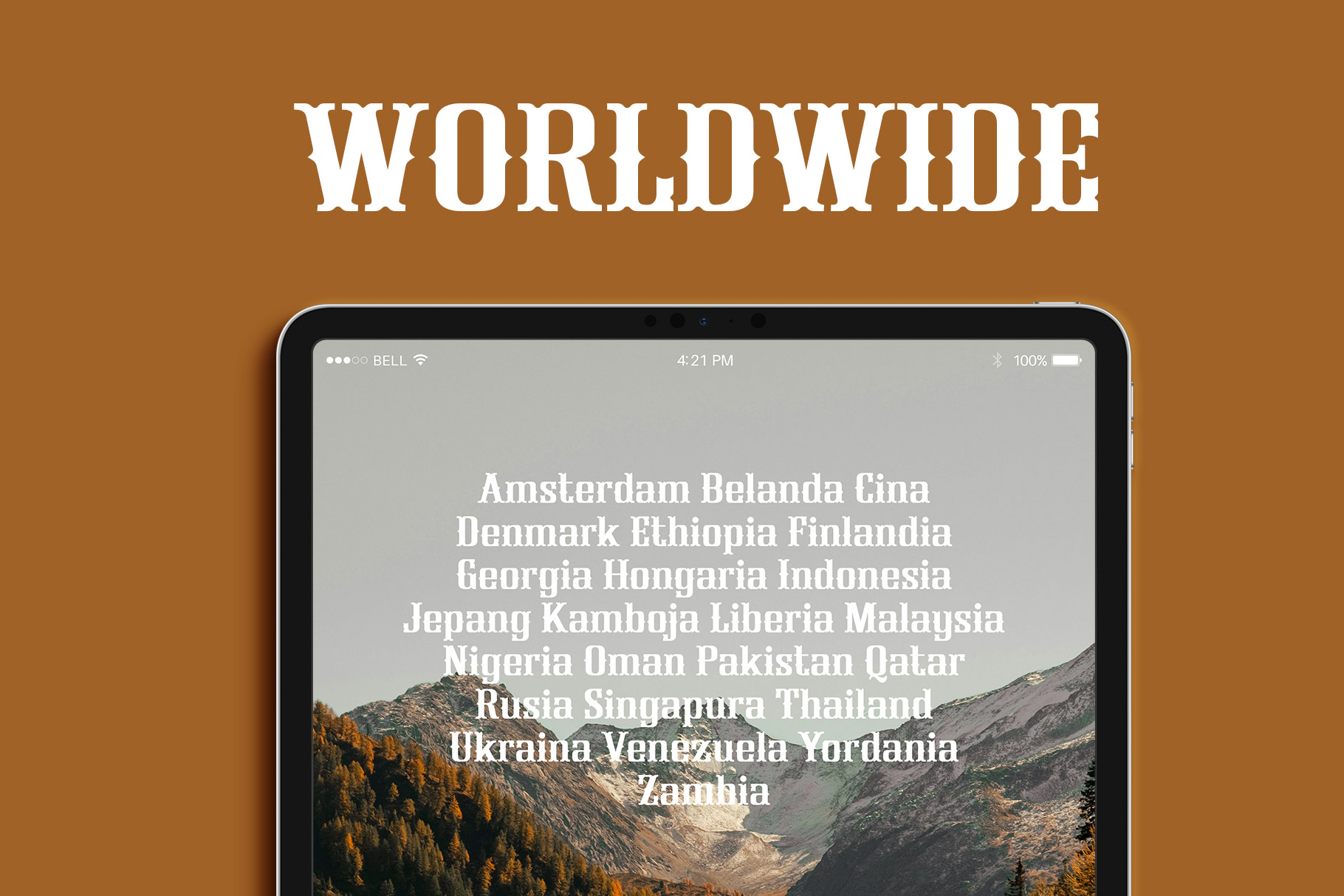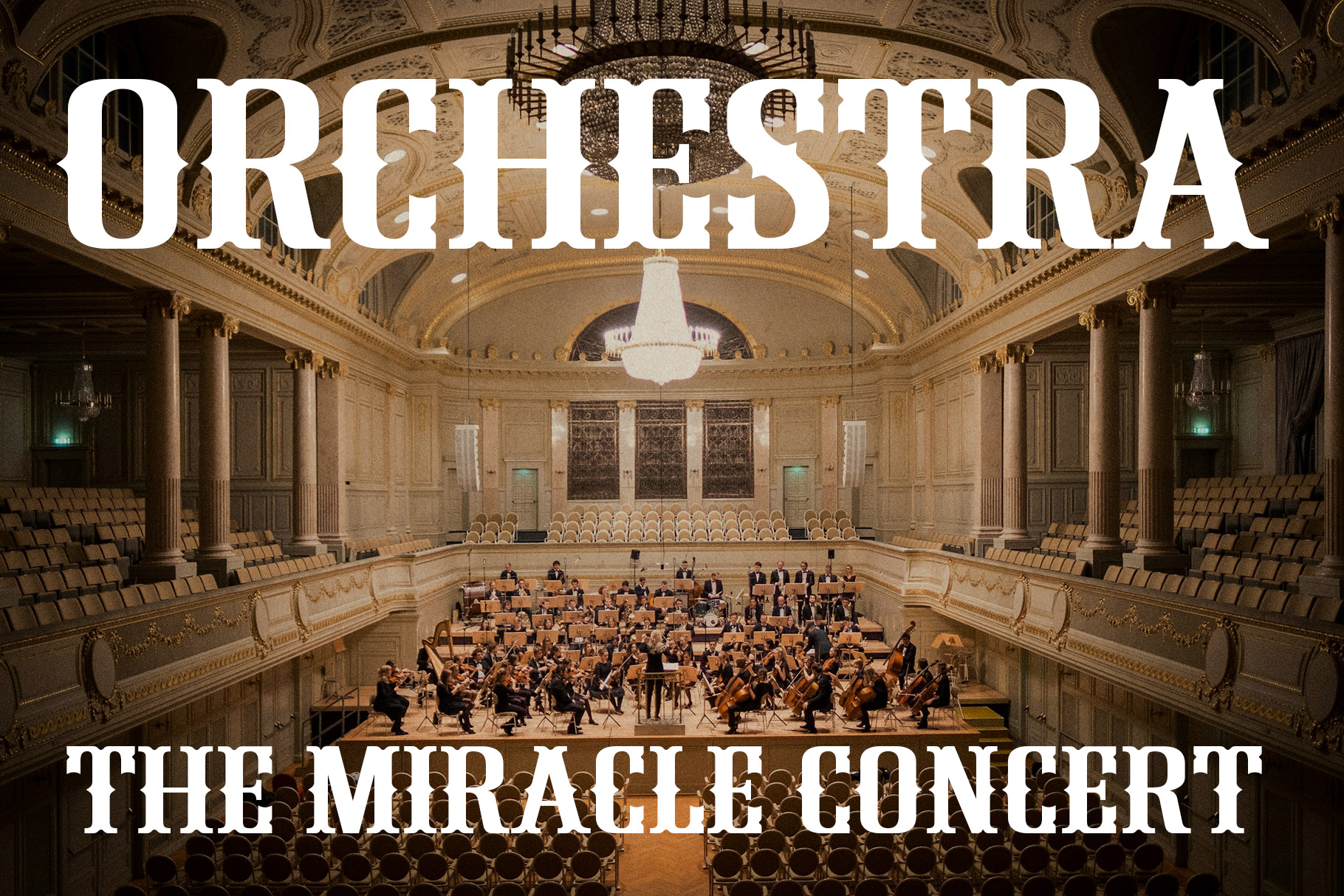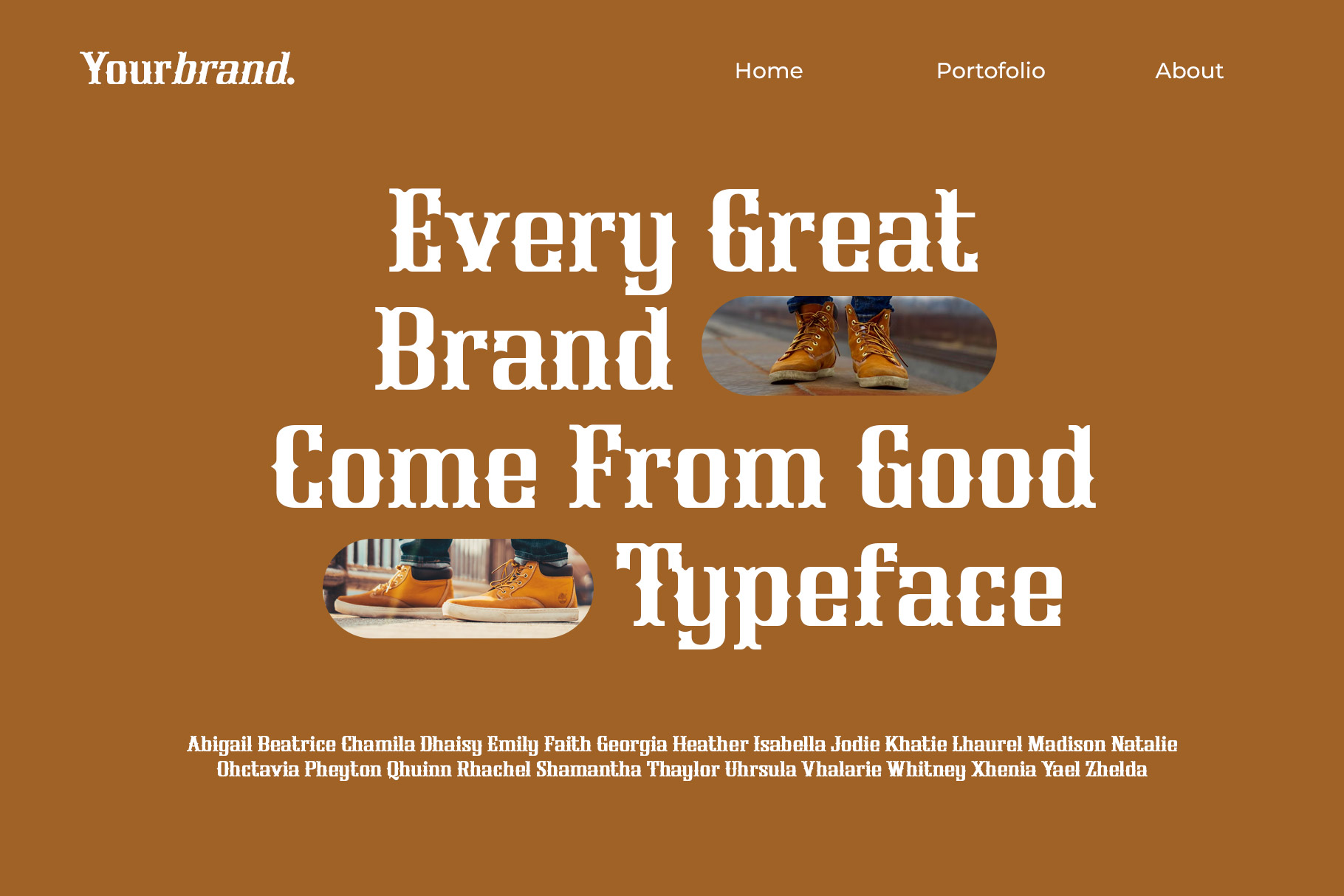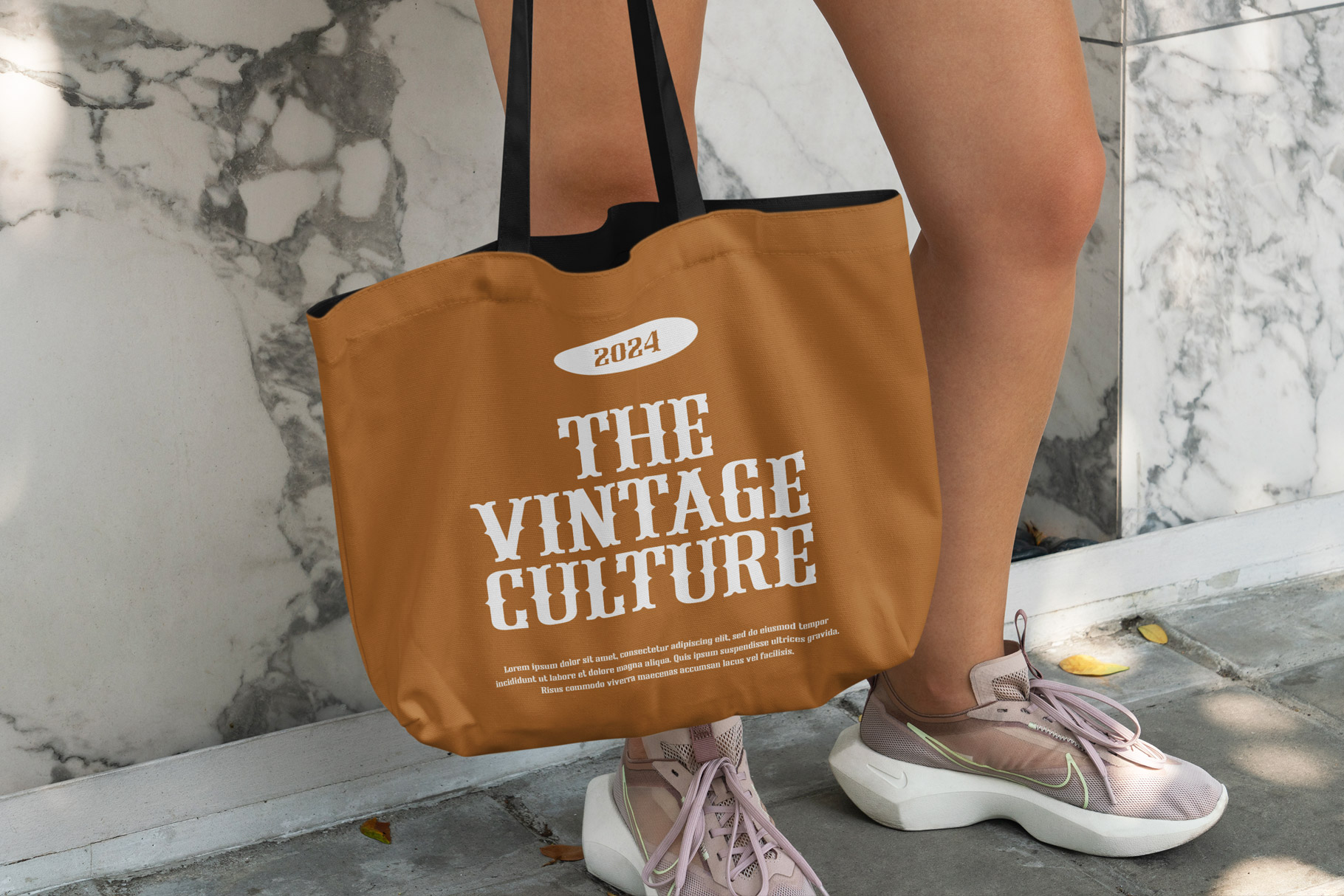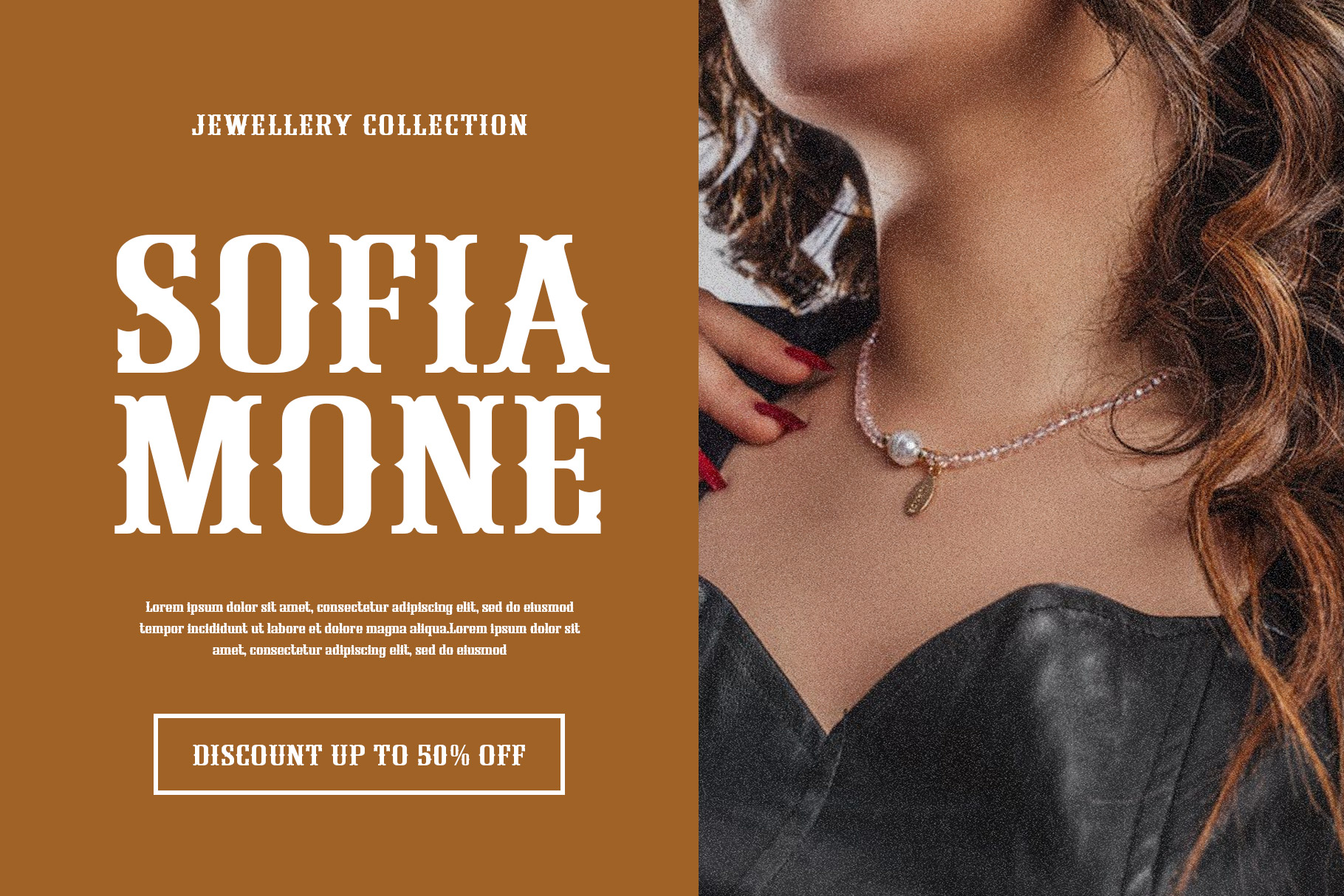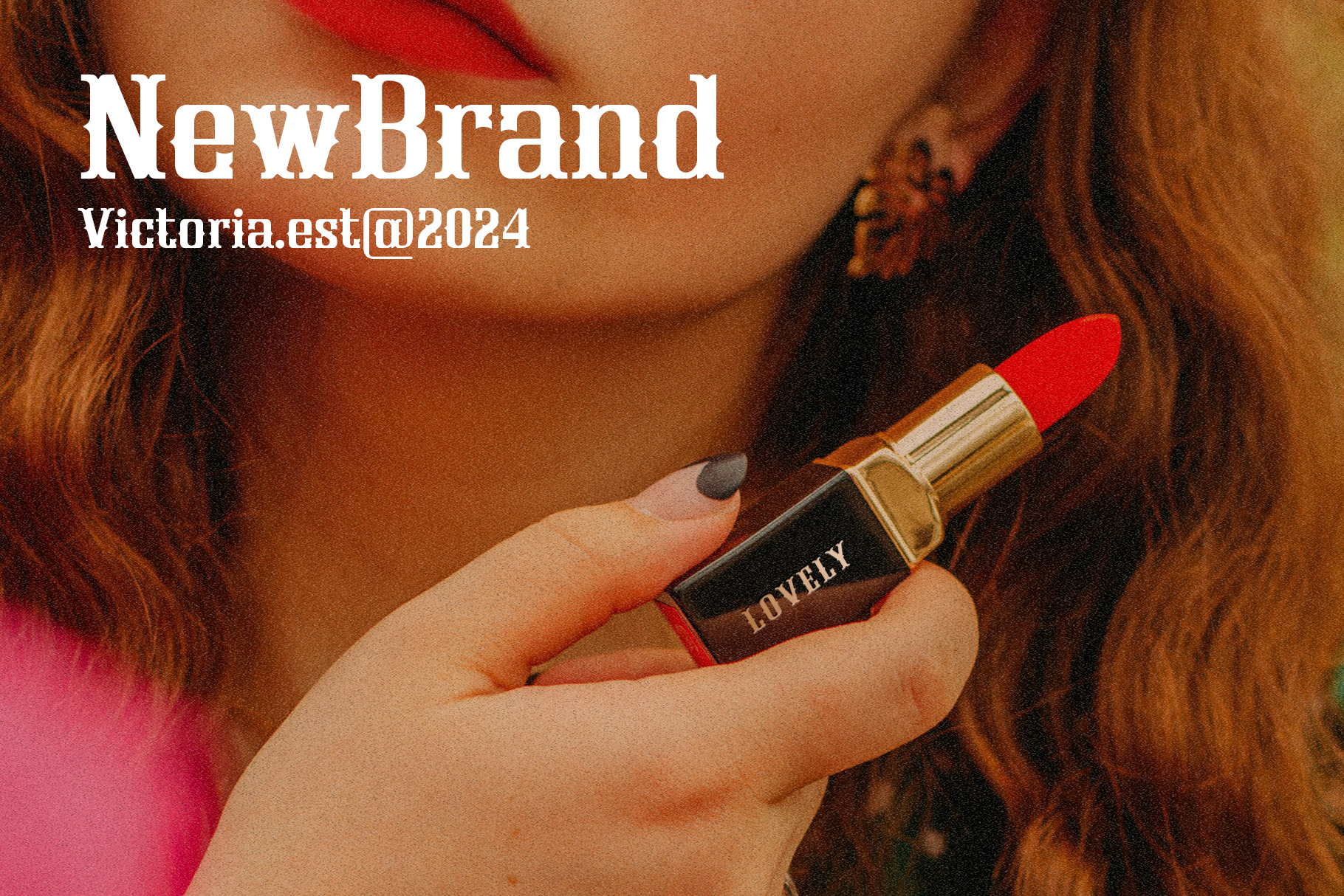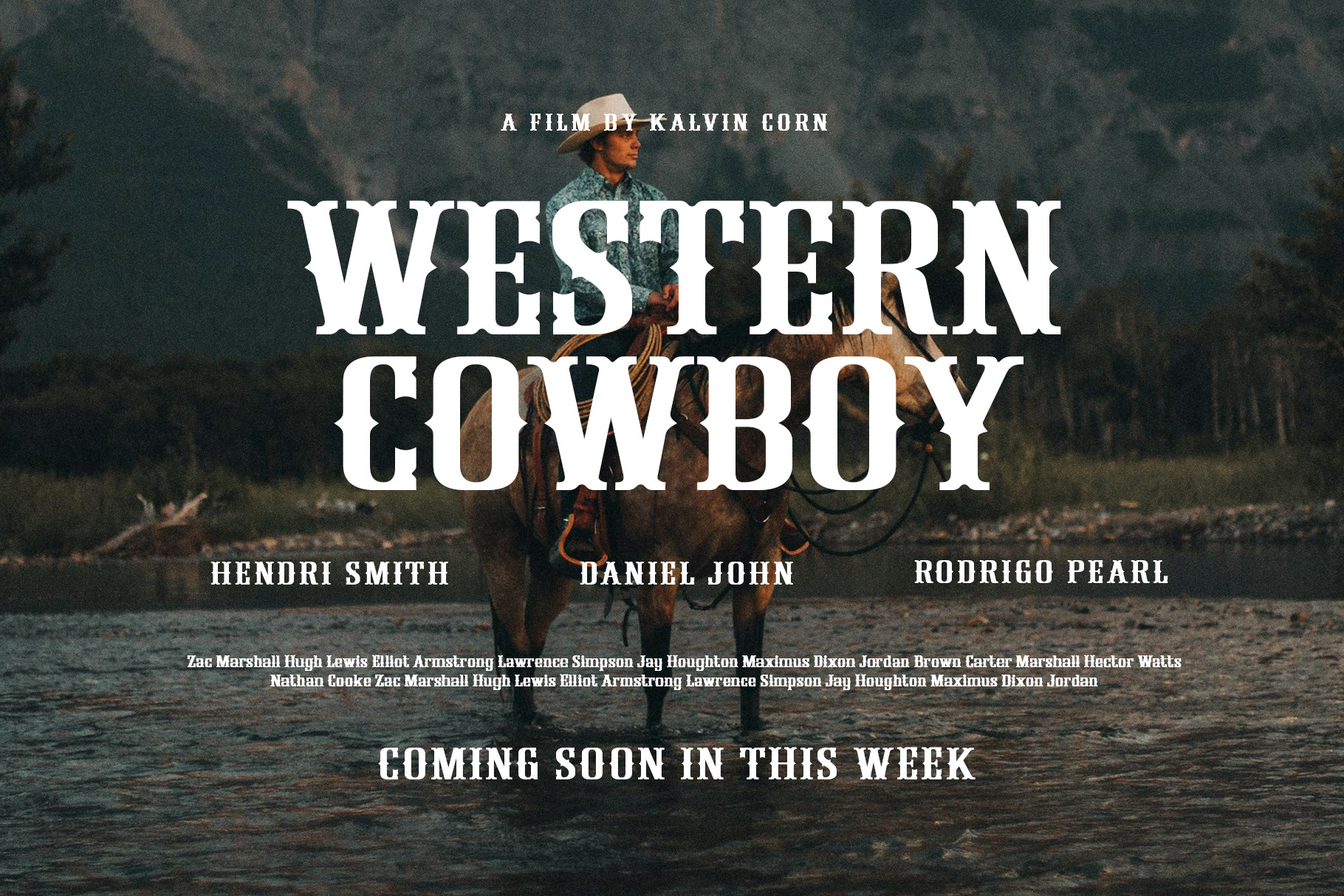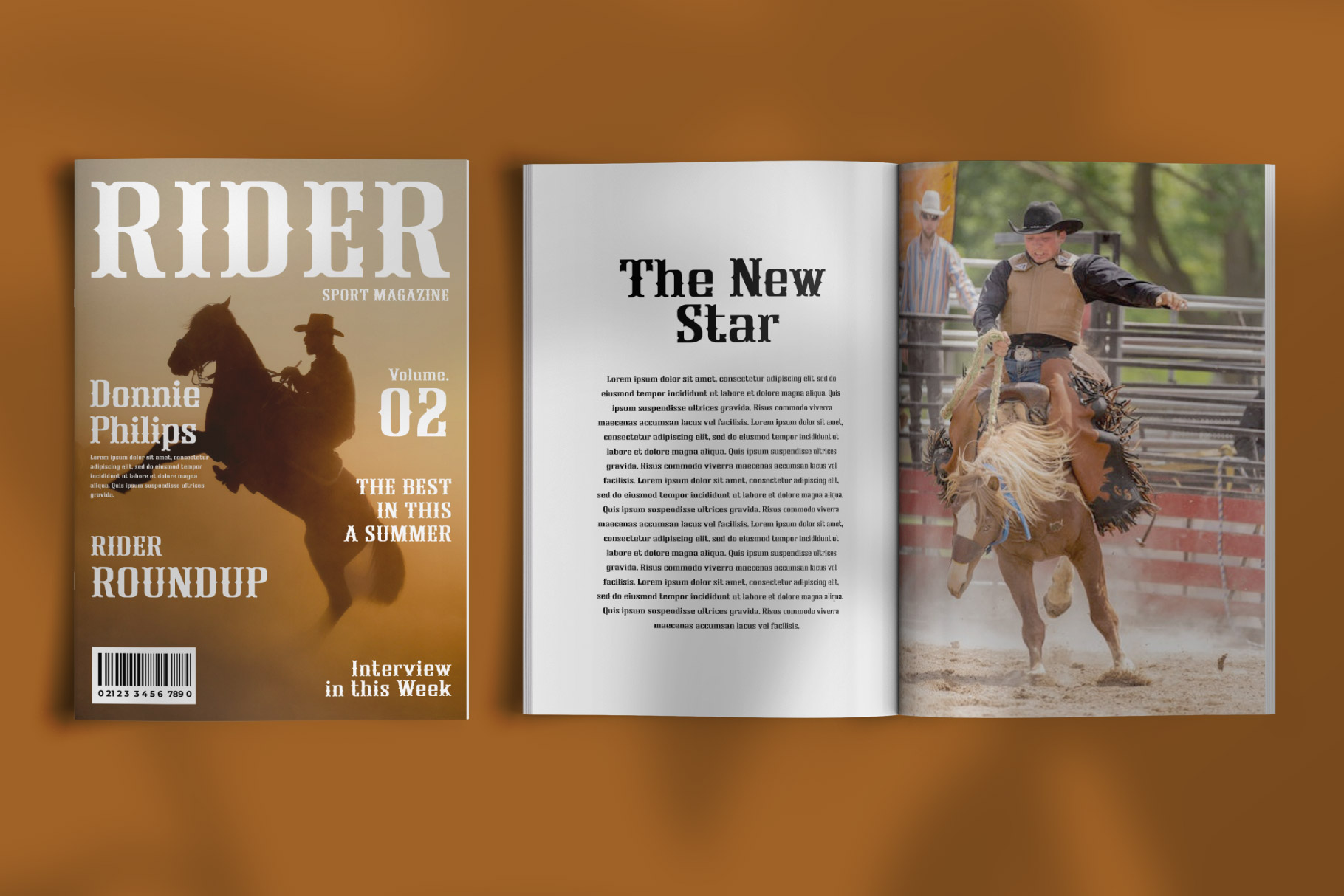
Westner Vintage Western Font
Westner is vintage font inspire by old american cowboy visual design. Westner come with vintage letterforms and spirit of western. Westner is a perfectly choice for any creative endeavor, chic, lifestyle design such as logos, advertisements, stationery, branding project, display and magazine, invitation, corporate brand, product design, label, business project and many other project with western touch.